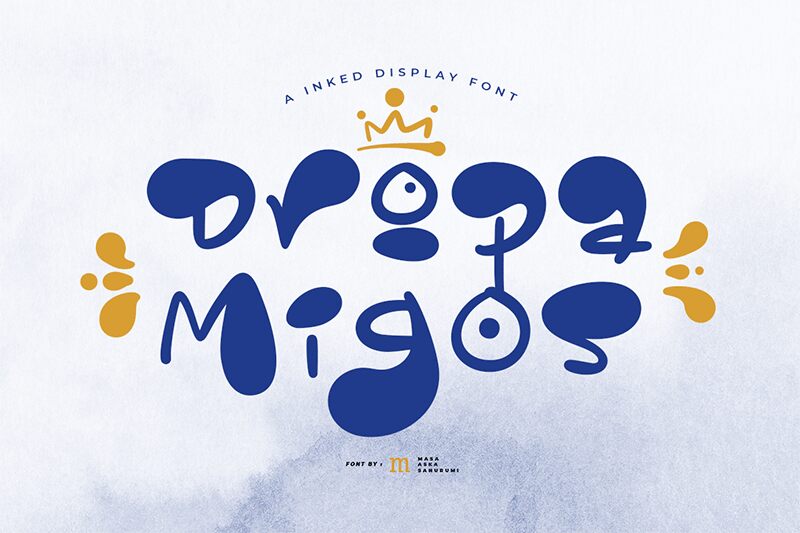
Dropa Migos, crafted by Masa Aska Sanurumi, leaps off the page with its playful cartoon style and bold presence. Its charmingly whimsical characters are reminiscent of animated joy, beckoning a sense of fun and creativity. Each letter appears to dance with life, infusing everyday text with personality and a touch of the extraordinary.
This font shines in contexts where a touch of humor is key-perfect for children's books, party invitations, or any project looking to inject lightheartedness into its visual identity. Its boldness makes it ideal for headlines and titles that demand attention while maintaining an air of whimsy and delight.